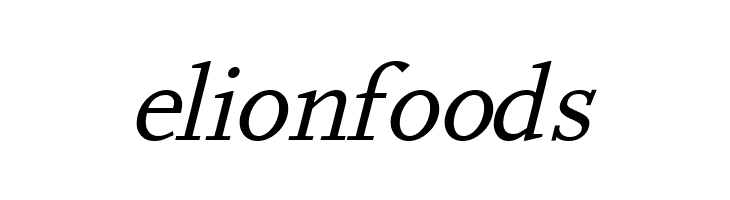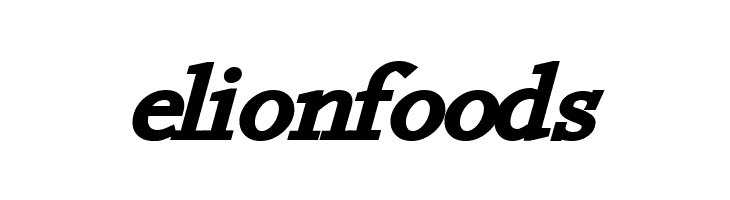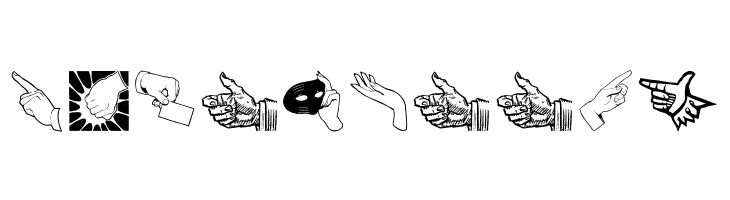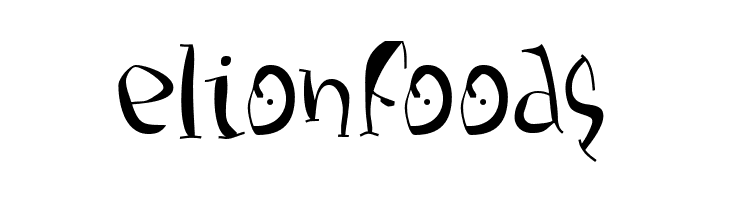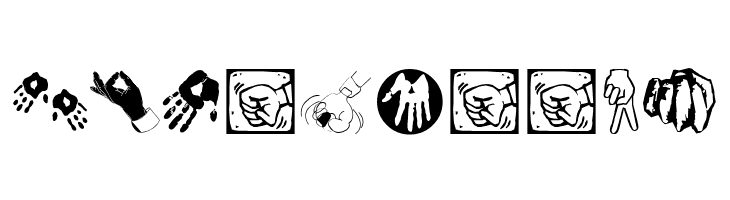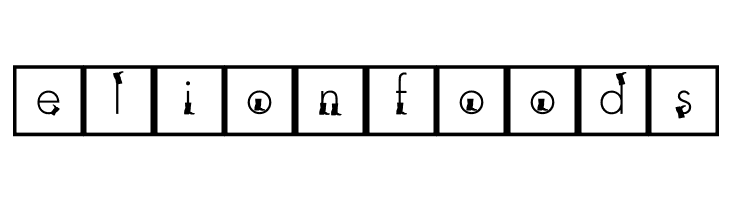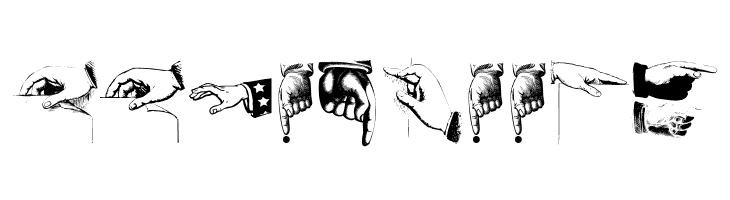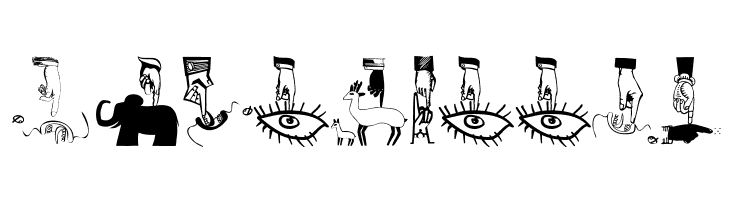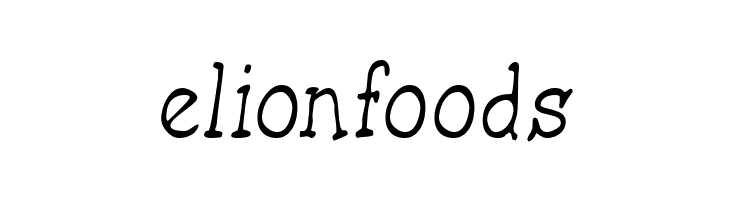
• Hanch Bold Italic
( Roger White - web.archive.org/web/20120416090521/www.rogersfonts.org.uk/ )
A bold, italicized font with strong strokes and a modern yet classic appeal.
• Hanch Italic
( Roger White - web.archive.org/web/20120416090521/www.rogersfonts.org.uk/ )
An elegant italic serif font with flowing lines and refined serifs.
• Handiqua
A whimsical, hand-drawn font with playful and irregular strokes.
• HandmadeTypewriter
A charming, handcrafted typewriter-style font with a vintage feel.
• Hands
A diverse illustrated hand gesture font with cartoon and realistic styles.
• HandsAndFeet-Two
A playful, whimsical font with hand and foot elements in each character.
• HandsDown
An artistic and illustrative font with unique hand-drawn characters.
• HandsOnly
A decorative font featuring diverse hand gesture illustrations.
• HandsUp
A display font made up of various hand illustrations representing each character.
• HandsUpHandsDown
A whimsical display font made up of diverse hand gesture illustrations.